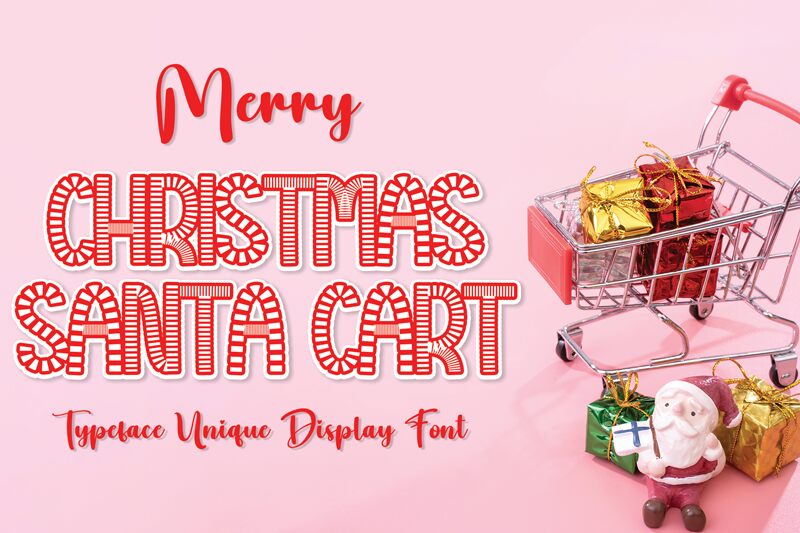
Christmas Santa Cart
Embrace the festive spirit with Christmas Santa Cart, a whimsically decorative display font crafted by the imaginative Scratchones. This extra-condensed typeface is a gift to designers, wrapping up the essence of holiday cheer in each character. With its playful curves and enchanting embellishments, Christmas Santa Cart is tailored for projects that call for a touch of magic and merriment.
Ideal for seasonal greetings, event invitations, or any creative endeavor that desires to spread joy, this font's unique style ensures your message stands out with warmth and festivity. Its narrow width adds a vintage charm to modern designs, making it as versatile as it is delightful. Let Christmas Santa Cart transform your creative works into pieces as memorable and special as the holiday season itself.